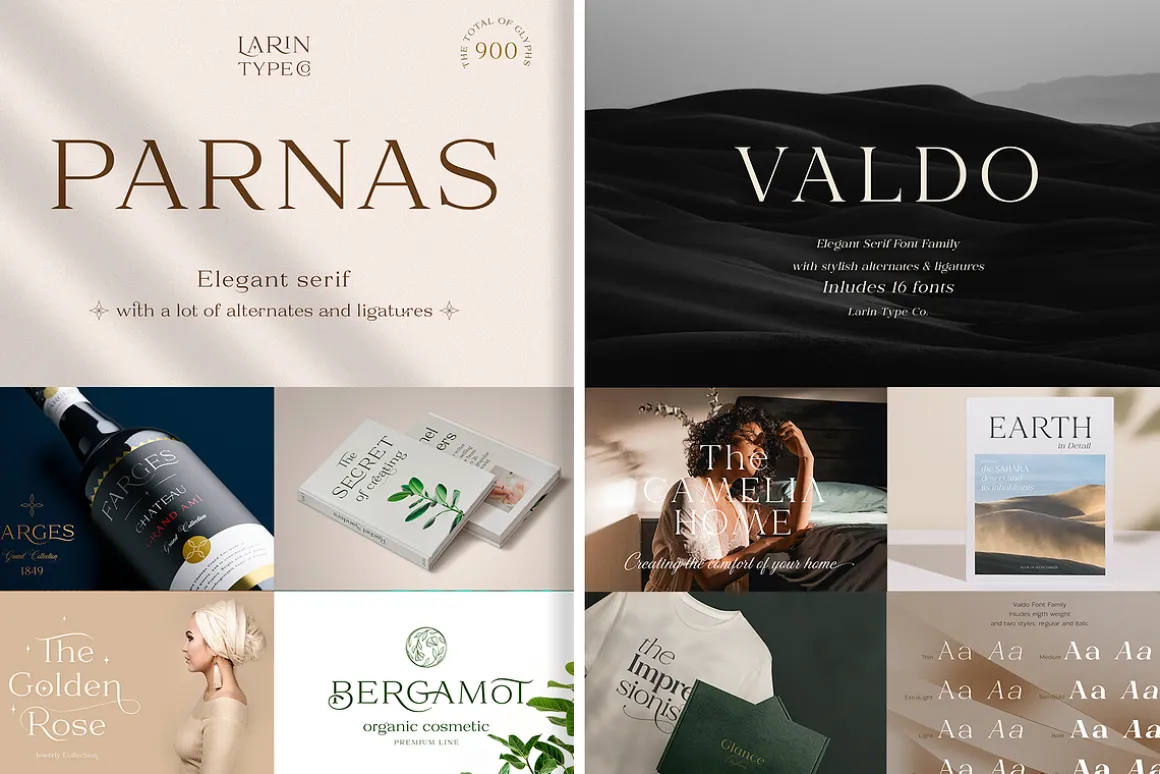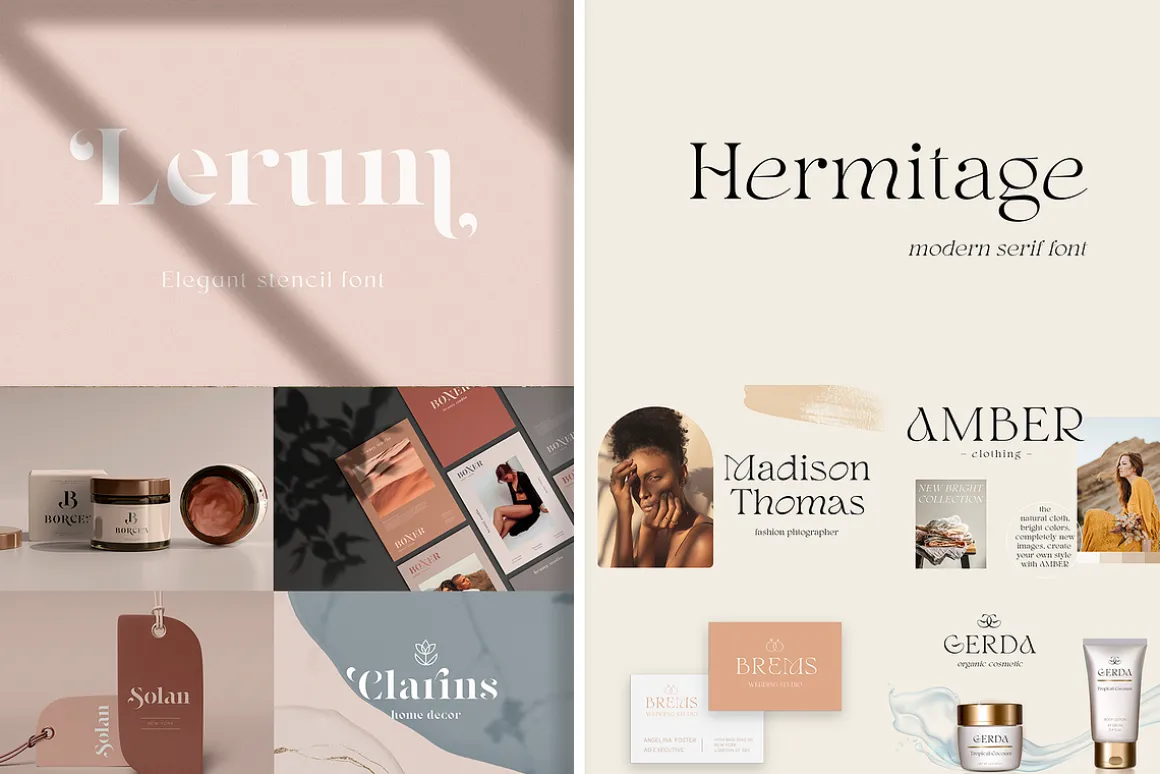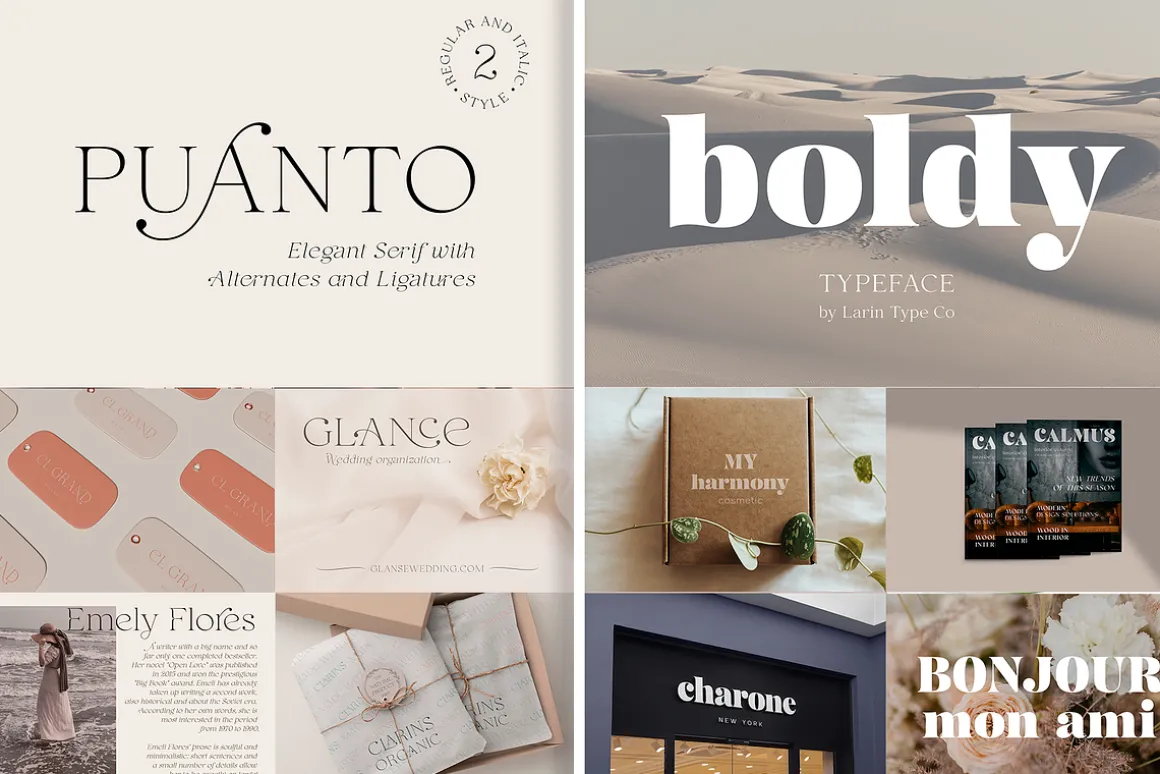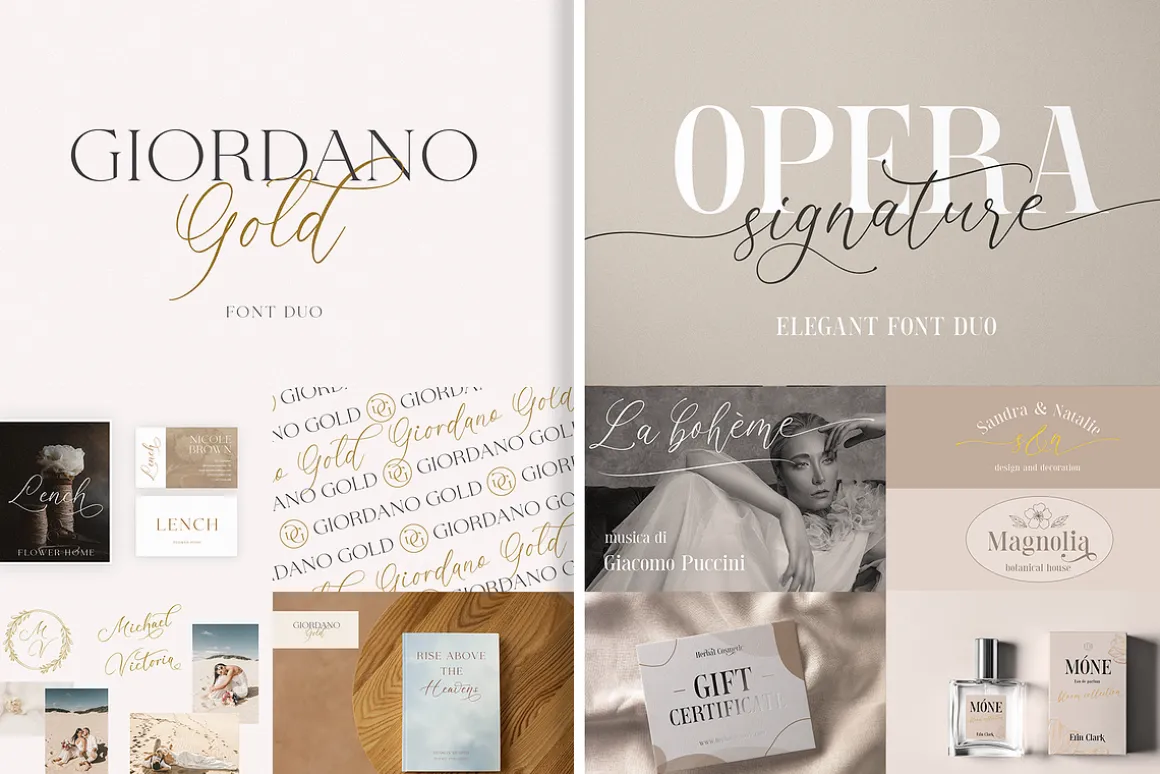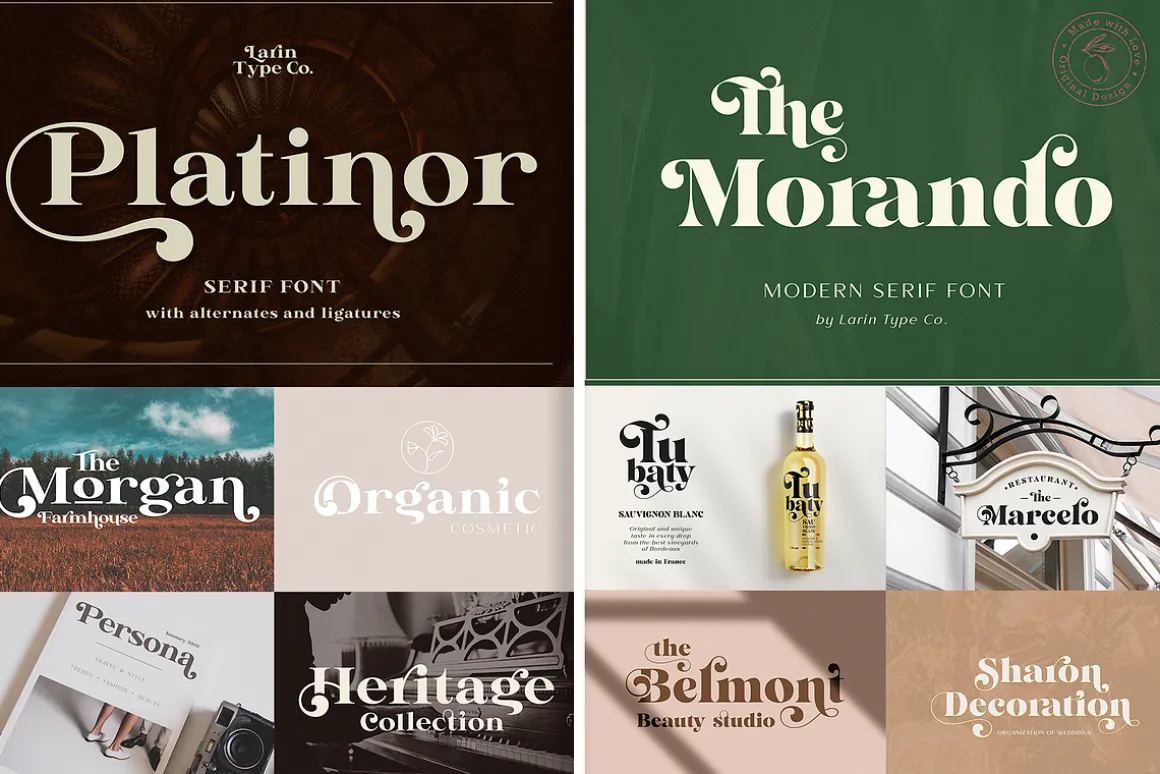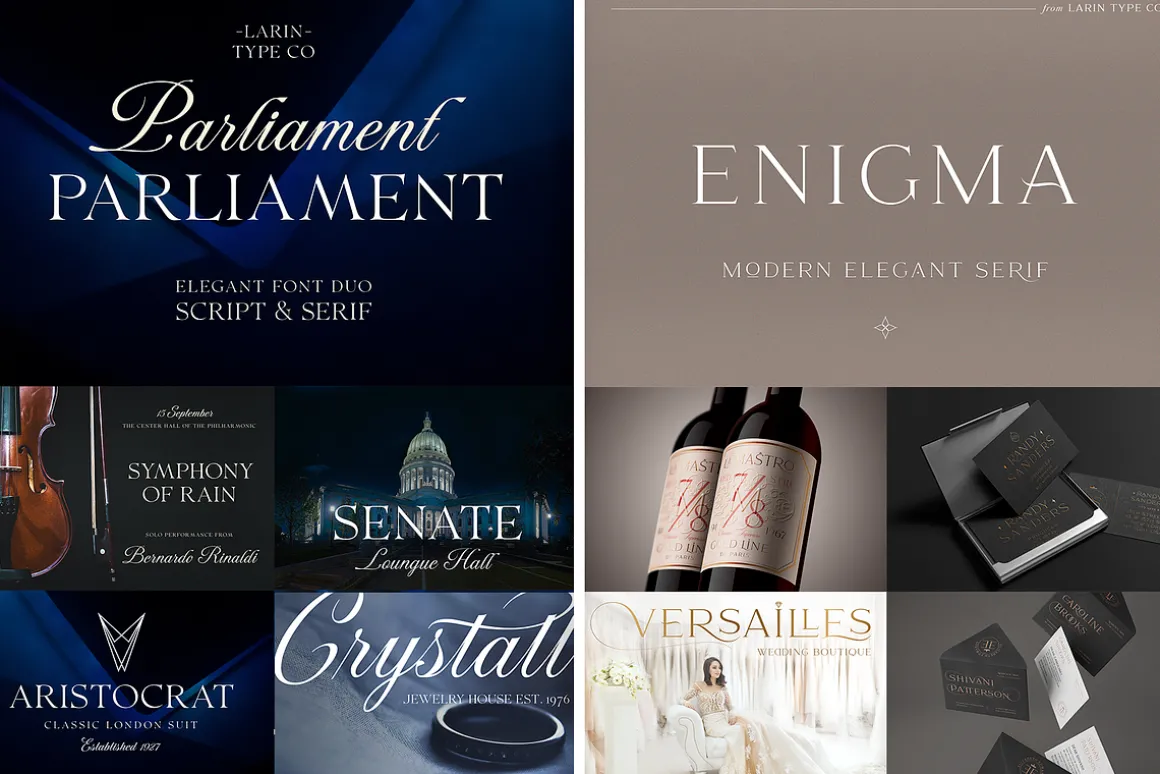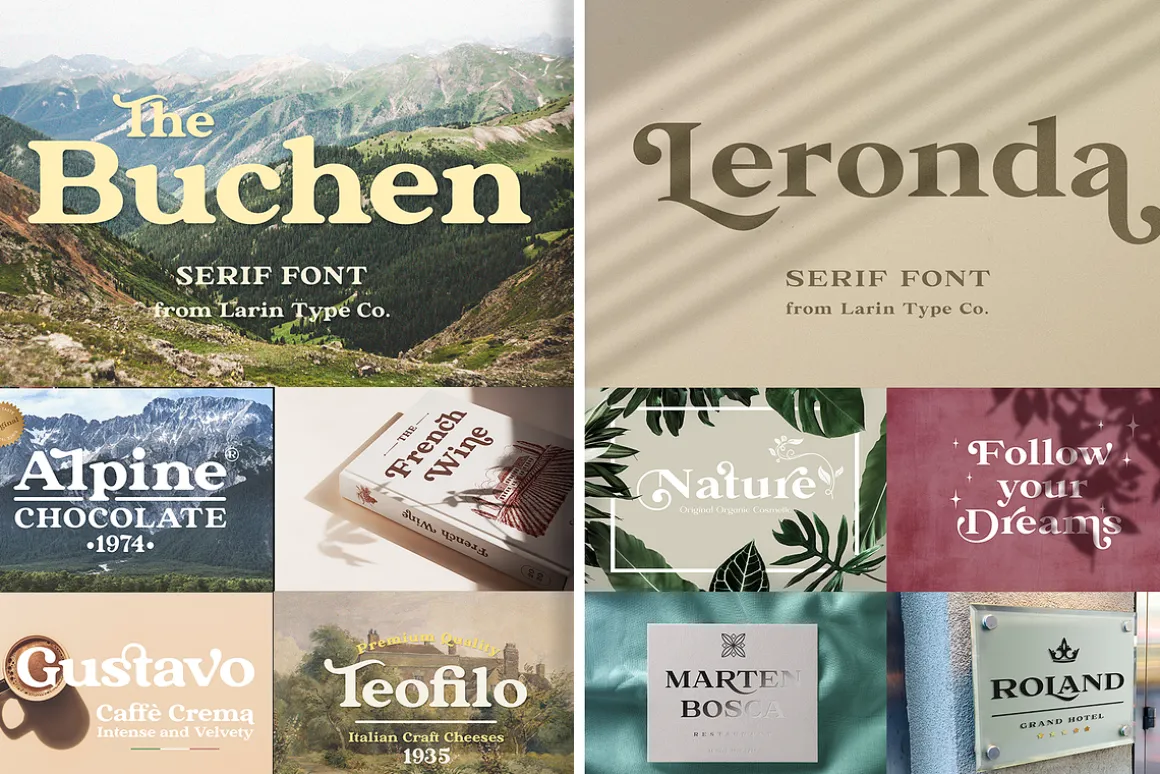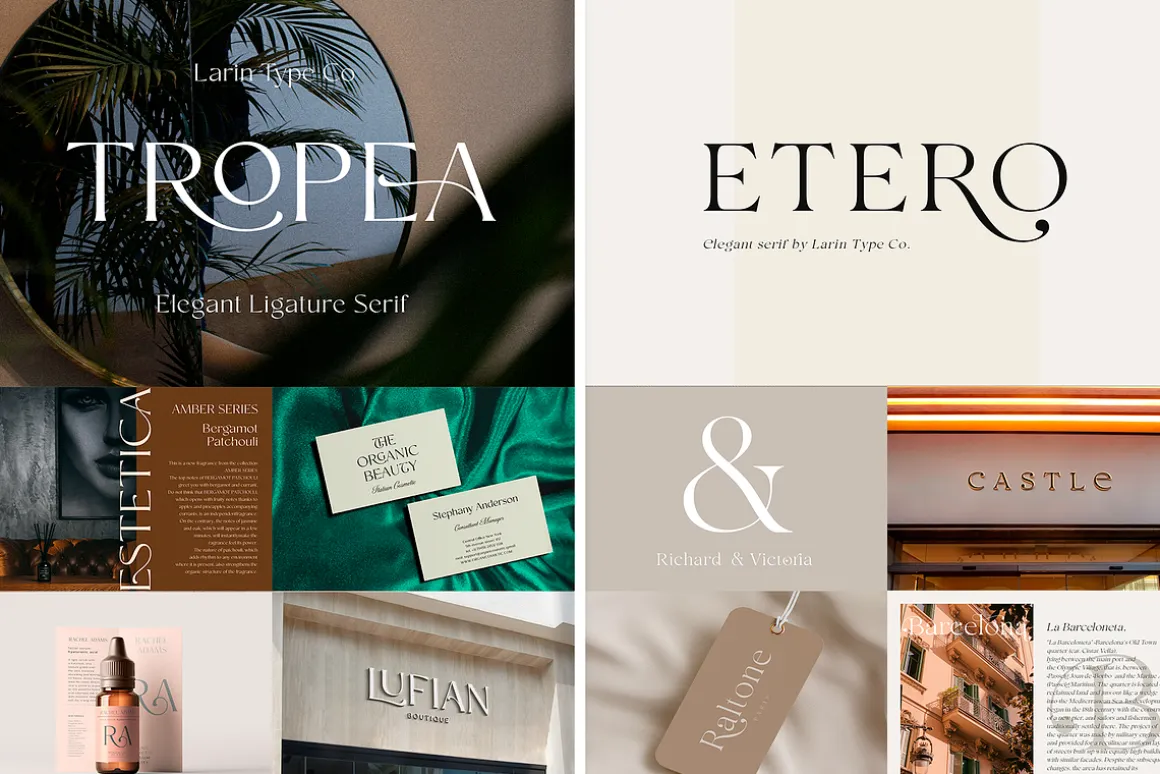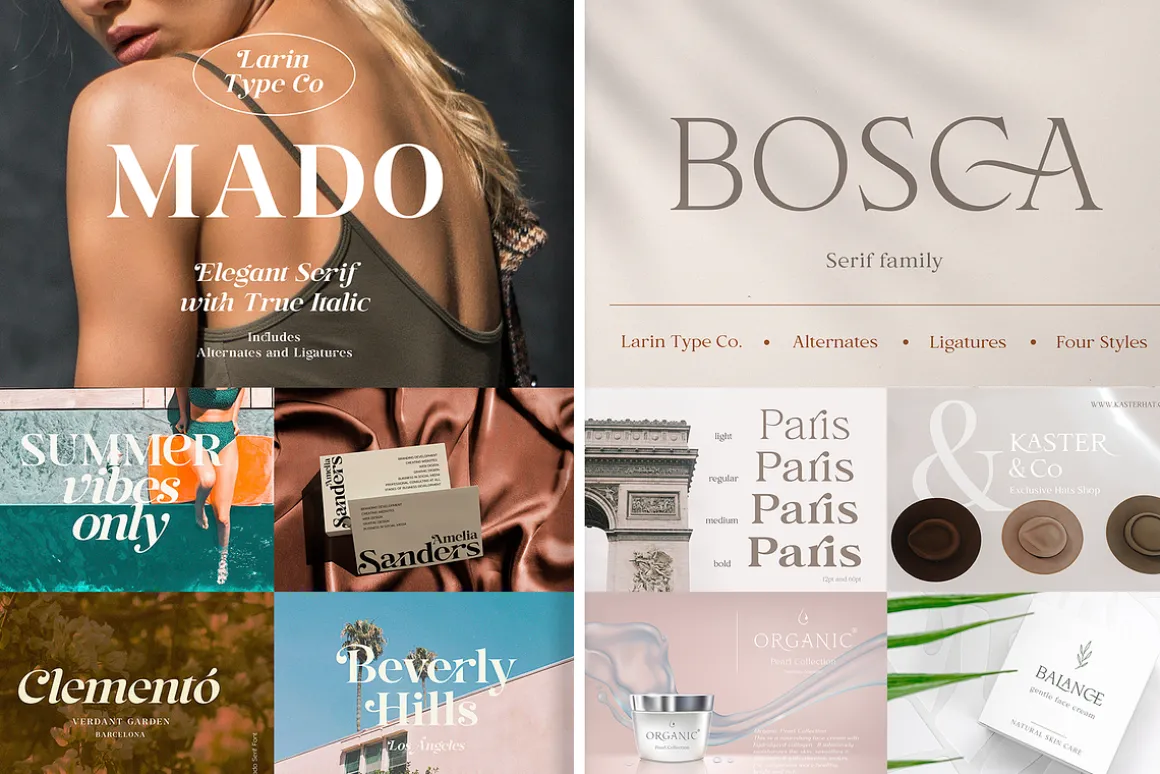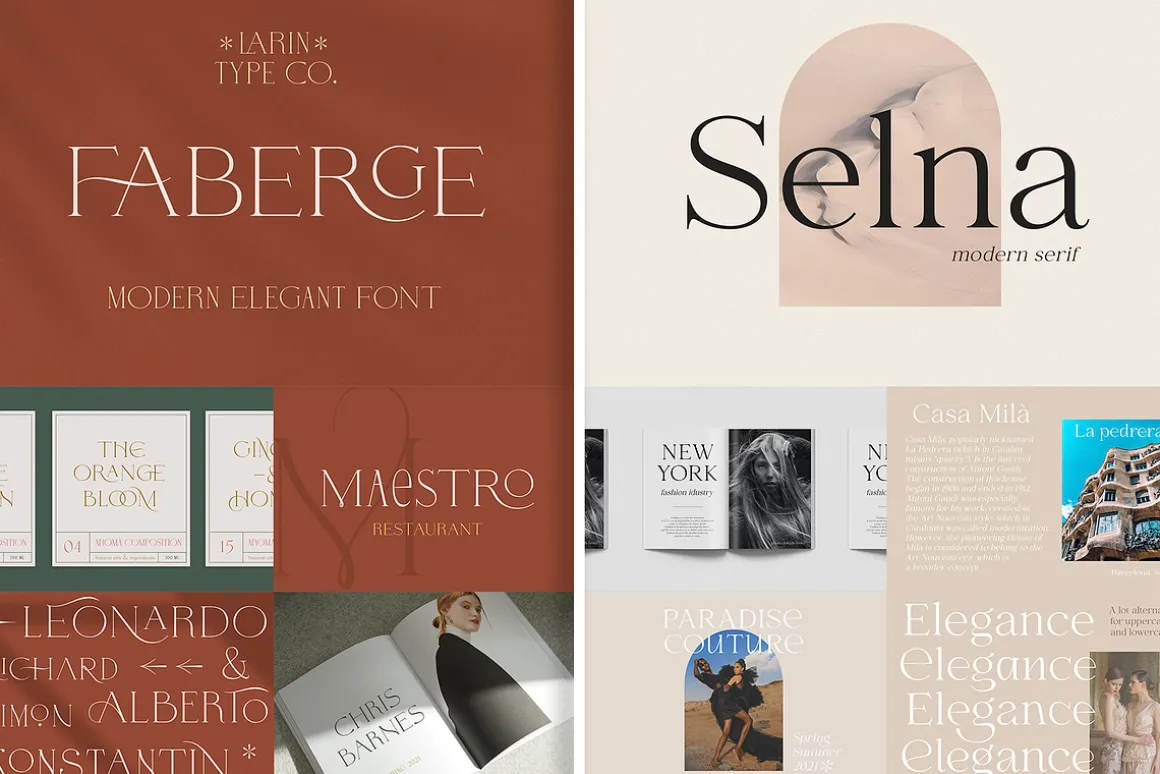
This is a selection of the Elegant Serif Font Bundle.
In this bundle you will find from thin and elegant to extra bold fonts. Whatever the theme, these fonts will be a great addition to your font library. These fonts are incredibly is versatile and can be used in a variety of settings, from business documents to branding and marketing materials. This is a great choice for designers who want a font that is both contemporary and classic serif font.
All fonts carefully designed and assembled and easy to use has OpenType features.
The bundle includes 27 serif font families.
- Blane
- Boldy
- Bosca
- Conso Serif
- Enigma
- Etero
- Faberge
- Giordano Gold
- Hermitage
- Intenso
- Lastero
- Leronda
- Lerum
- Mado
- Marmaris
- Morando
- Opera Signature
- Parliament
- Parnas
- Platinor
- Puanto
- Romanson
- Santer
- Selna
- The Buchen
- Tropea
- Valdo